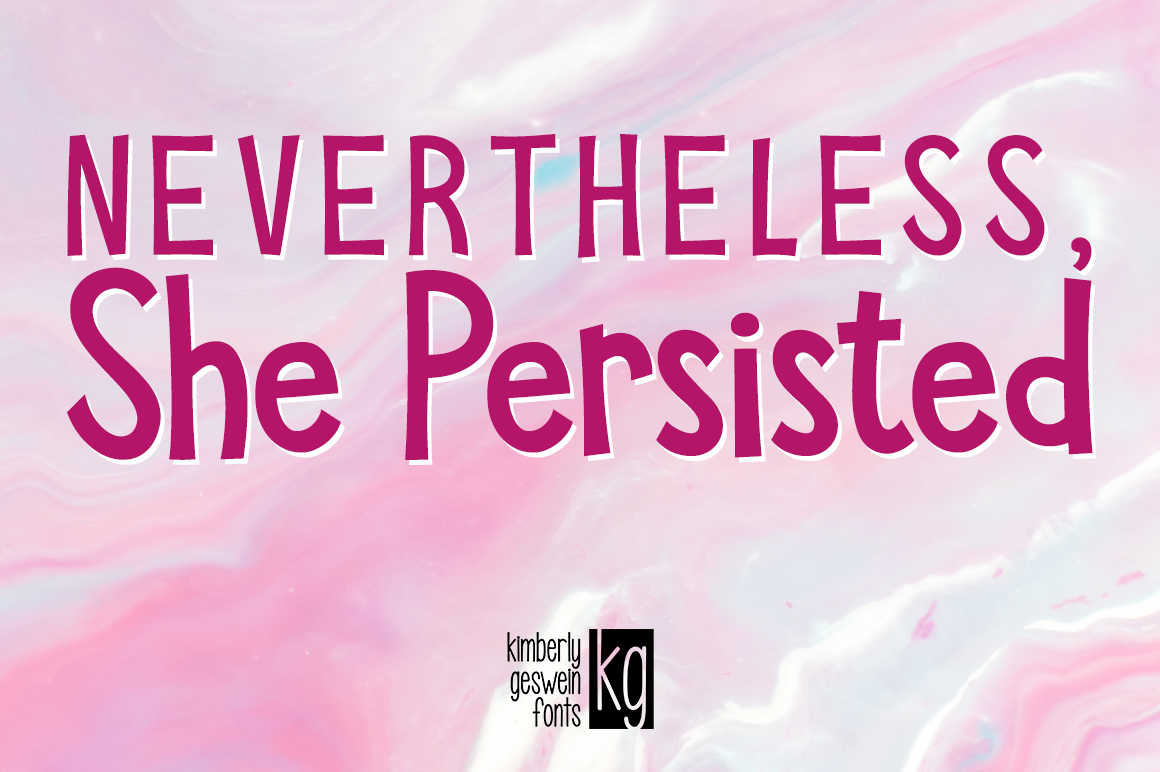
KG She Persisted Font
This font is legible enough for text but still has enough personality to make things fun. Bold & strong like my favorite women!